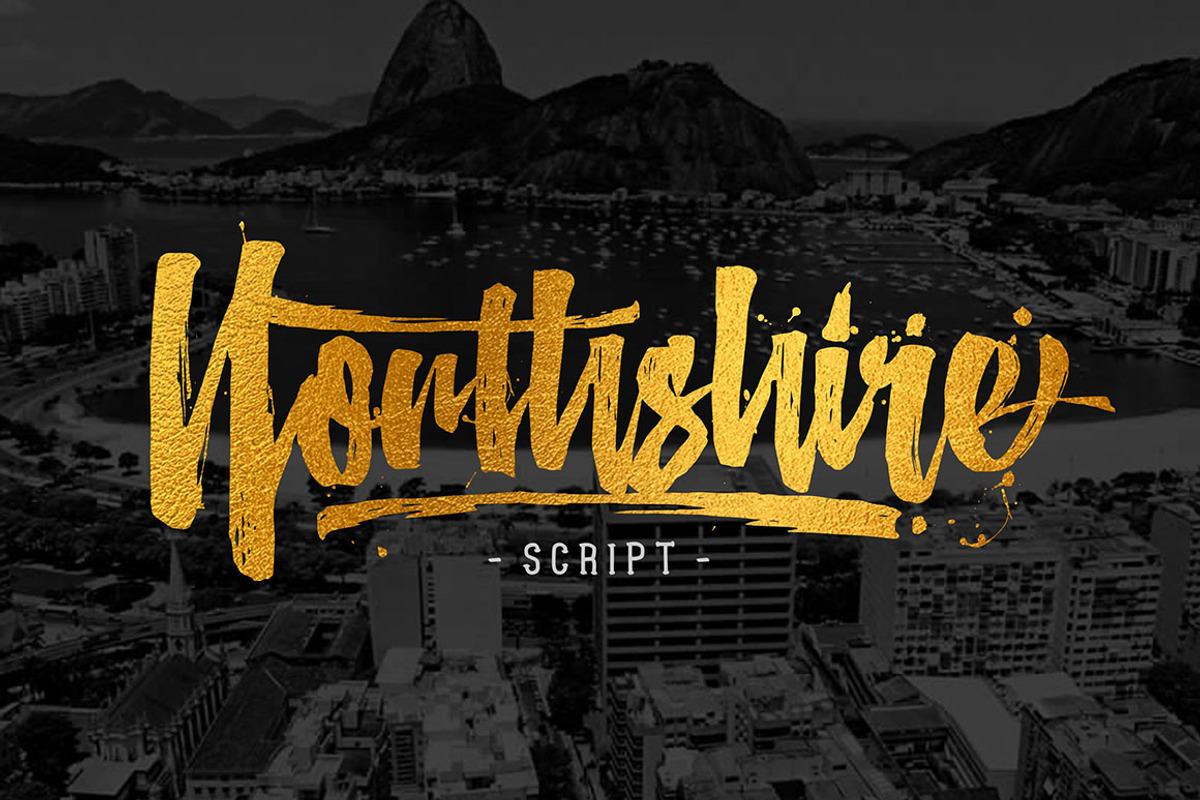
Northshire Script is the new font from Heybing Supply Co,was created as a dual-purpose font, with hand-painted characters and an irregular baseline, a casual, arty and inky, newly brush-lettered font.
To create the beautiful combination, just mix your words with the alternative glyphs. The Northshire Script includes a full set of capital and lowercase letters, as well as multi-lingual support, currency figures, numerals, punctuation & some extra glyphs.
Perfect for : using in ink or watercolour based designs or on its own as bold hand-brushed lettering. Use it for Branding, Logos, Greeting Cards, Stationery Design, Invitations, T-shirts, Apparel, Packaging designs, Posters, Typographic Design, and so much more..